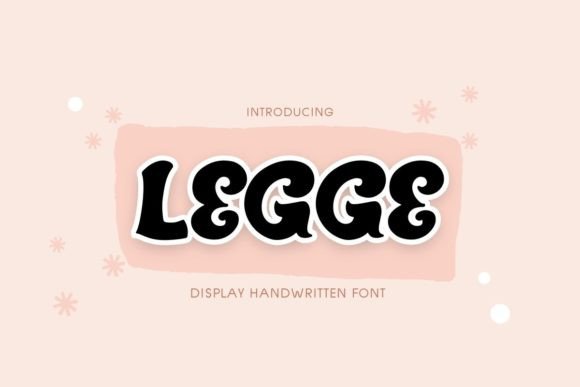
Embark on a typographic odyssey with Legge, a display font that radiates a rhythm of playfulness and fun. Its groovy nature pulsates through every character, igniting designs with an irresistible allure.
Step into the realm of Legge's serifs – they're not just decorative; they're dance partners, swirling and twirling to create a visual symphony. Each letterform is a masterpiece of curves, angles, and flourishes, combining to form words that leap off the page, demanding attention.
Legge's repertoire extends far beyond titles; it's a multi-talented performer ready to elevate any design concept. Its whimsical strokes infuse heart beat-themed designs with an infectious energy, while its amiable nature lends itself perfectly to kids' designs, birthday invitations, and playful projects.
Picture Legge adorning t-shirts, spreading joy and individuality with every wear. Its versatility extends to crafting, stickers, and sublimation, making it the perfect companion for creative souls seeking to add a touch of whimsy to their projects.
Legge is more than just a font; it's a gateway to a world of imagination, where words transform into vibrant expressions of personality. Unleash your creativity and let Legge guide you on a typographic adventure like no other.